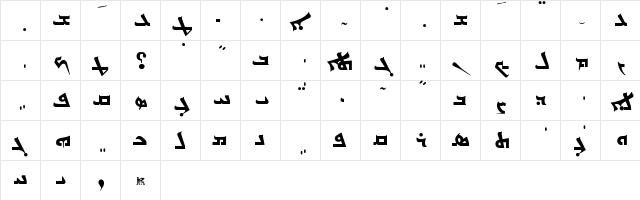
Estrangelo (V1.1) Regular
Design Context for Estrangelo (V1.1) Typeface
Estrangelo (V1.1) takes a measured approach to typography — its balanced proportions and neutral character make it a reliable workhorse for both digital and print work.